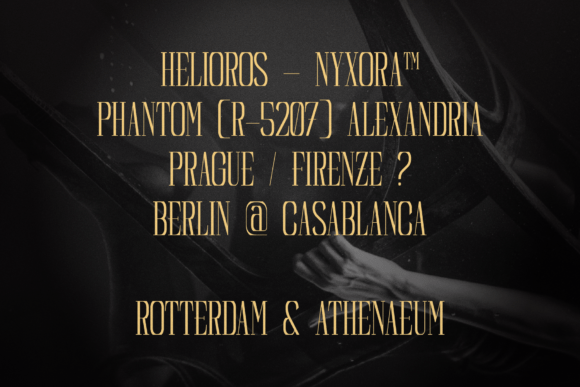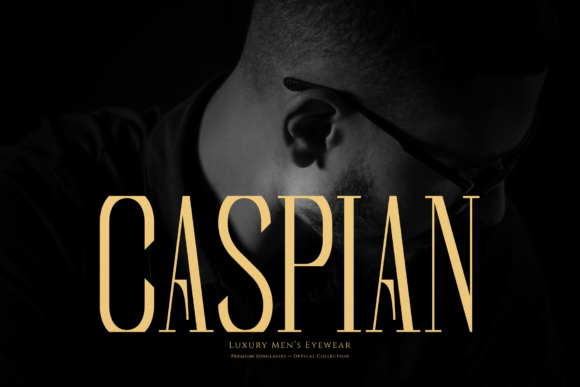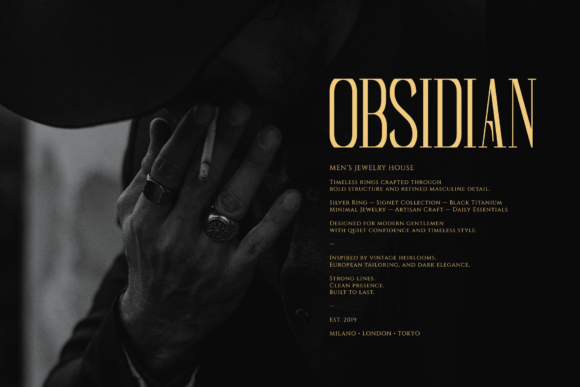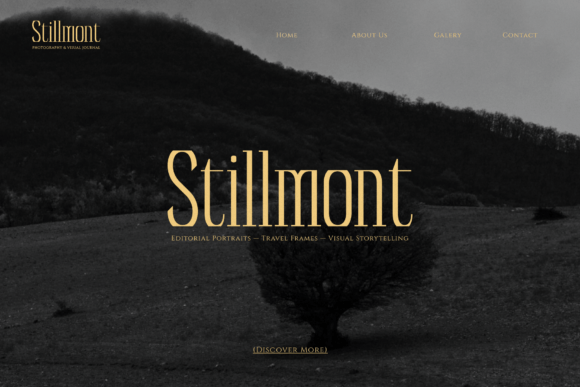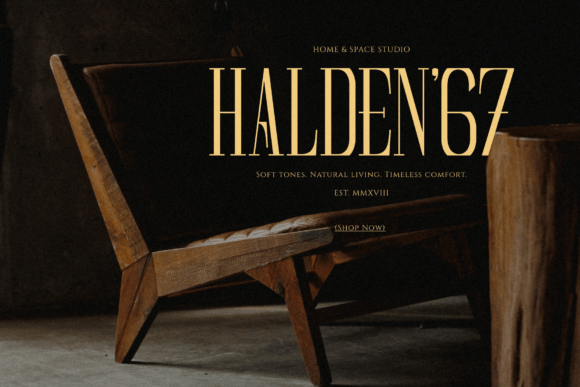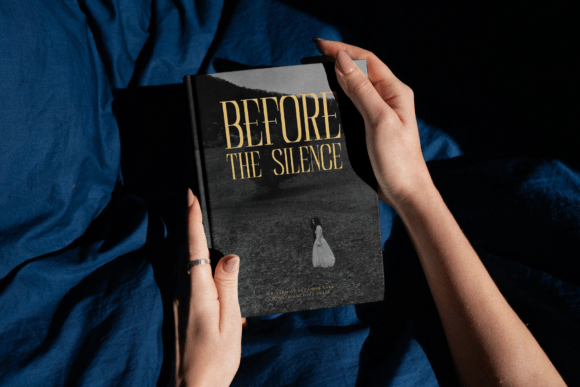
Introduction to Reqaela Font
Imagine you’re sitting in a quiet studio, surrounded by empty canvases and scattered design books. You’ve been brainstorming for hours, but the perfect font to elevate your creative project has yet to reveal itself. That’s when you stumble upon Reqaela Font – a game-changing display serif font that sets the tone for an unforgettable visual experience.
Reqaela Font is more than just a design resource; it’s a key to unlocking the full potential of your high-end editorial, cinematic, or luxury branding projects. With its expansive toolkit, you’ll enjoy complete creative fluidity across minimal layout canvases, making it the ultimate solution for designers seeking a high-quality, versatile font.
Whether you’re working on a dark-academia book cover, haute couture fashion branding, or luxury cosmetics packaging, Reqaela Font is the perfect choice. Its specialized alternates, unique ligatures, and comprehensive multilingual support ensure that your design stands out from the crowd, even with a transparent background.
Key Features of Reqaela Font
- High-quality design resource suitable for creative projects, offering a unique and elegant style.
- Transparent background and customizable options allow for seamless integration into any design, from logos to digital art.
- Designed with precision and attention to detail, Reqaela Font boasts a high-resolution quality, suitable for print and digital applications.
- Reqaela Font is a versatile design resource, perfect for use in a wide range of creative projects, from branding and marketing materials to editorial and publishing content.
- Reqaela Font is a high-quality design resource, perfect for designers looking for a unique and elegant font to enhance their creative projects.
Honest Review: Reqaela Font
As a designer, I’m always on the lookout for high-quality design resources that can elevate my creative projects. Recently, I stumbled upon the Reqaela Font, and I’m excited to share my thoughts on this font.
What works well: ✨ The Reqaela Font has a unique and elegant design that’s perfect for a variety of creative projects. The font is available for free download, which is a huge plus. The transparent background makes it easy to use on different backgrounds, and the high-quality design ensures that it looks crisp and clear on any device.
What doesn’t work well: ⚠️ The Reqaela Font is a bit limited in terms of font styles and variations. It’s mainly designed for body text, and it may not be suitable for headings or titles. Additionally, some users may find the font a bit too elegant or formal for casual projects.
Overall, I’m impressed with the Reqaela Font, and I think it’s a great addition to any designer’s toolkit. While it may have some limitations, its unique design and high-quality make it a valuable resource for creative projects.
- Unique and elegant design
Reqaela Font Overview
The Reqaela Font is a free download design resource ideal for creative projects. This high-quality font features a transparent background, making it perfect for any design need.
Use the Reqaela Font in conjunction with other design elements to create a visually appealing design. Experiment with different font sizes and styles to add depth and interest to your project.
The Reqaela Font is ideal for use in business cards, brochures, posters, and other marketing materials. It’s also great for use in creative projects such as art journals and scrapbook pages.